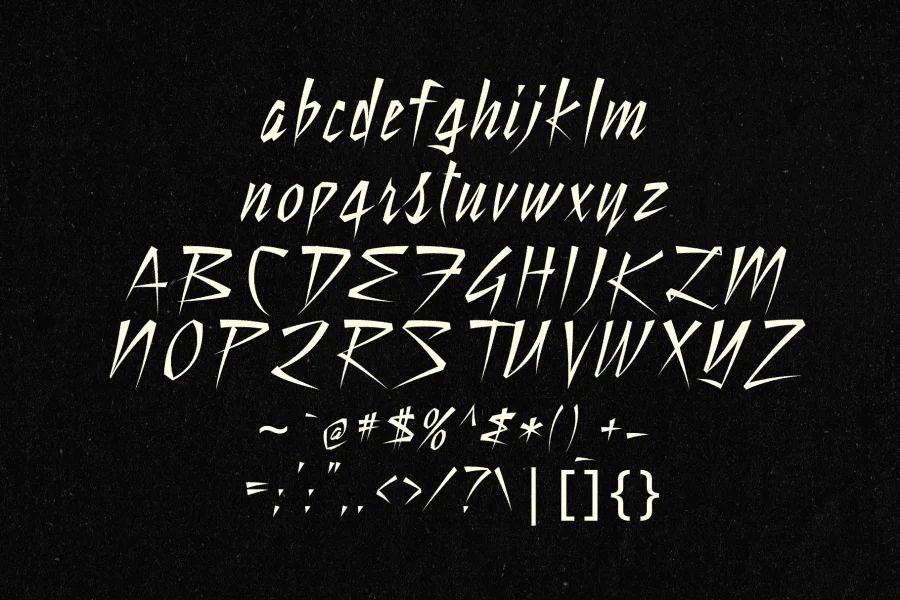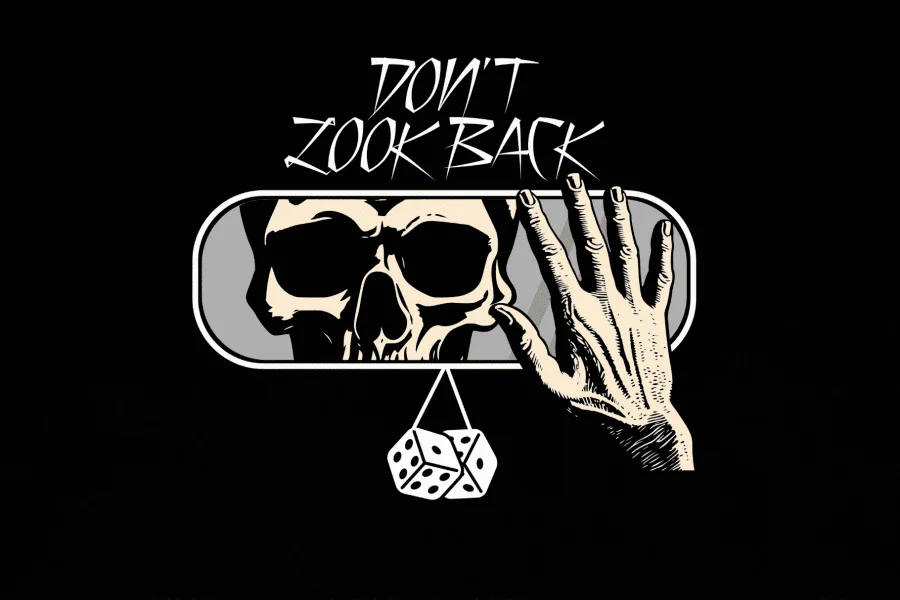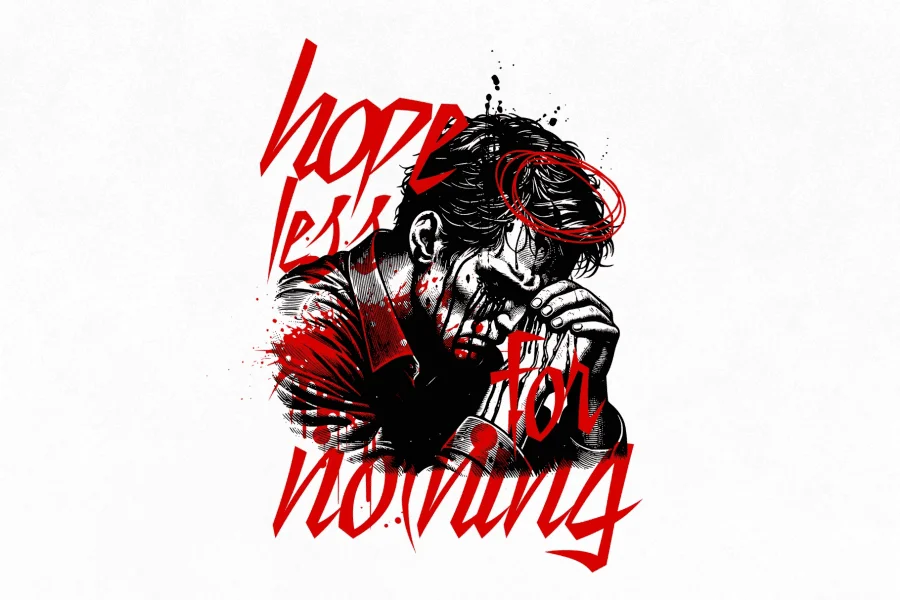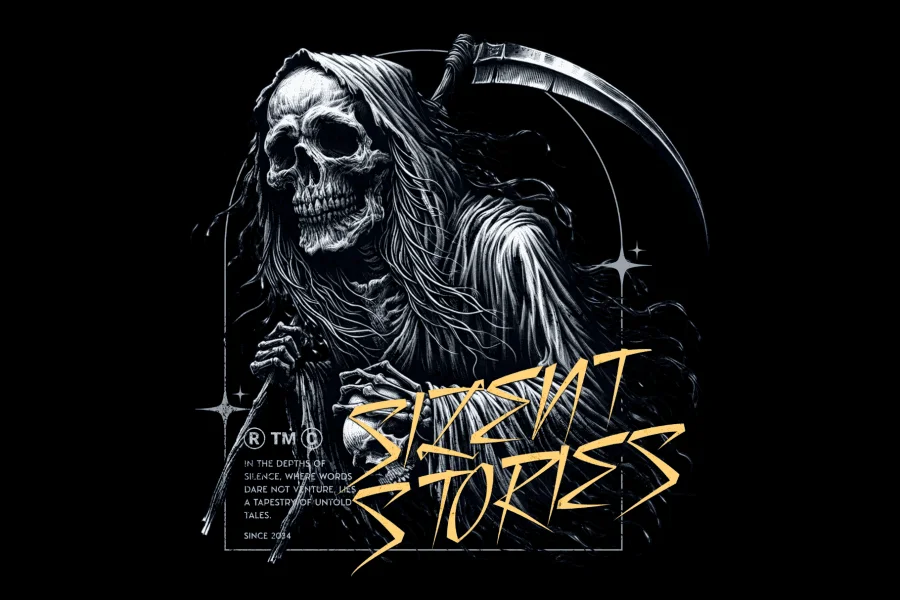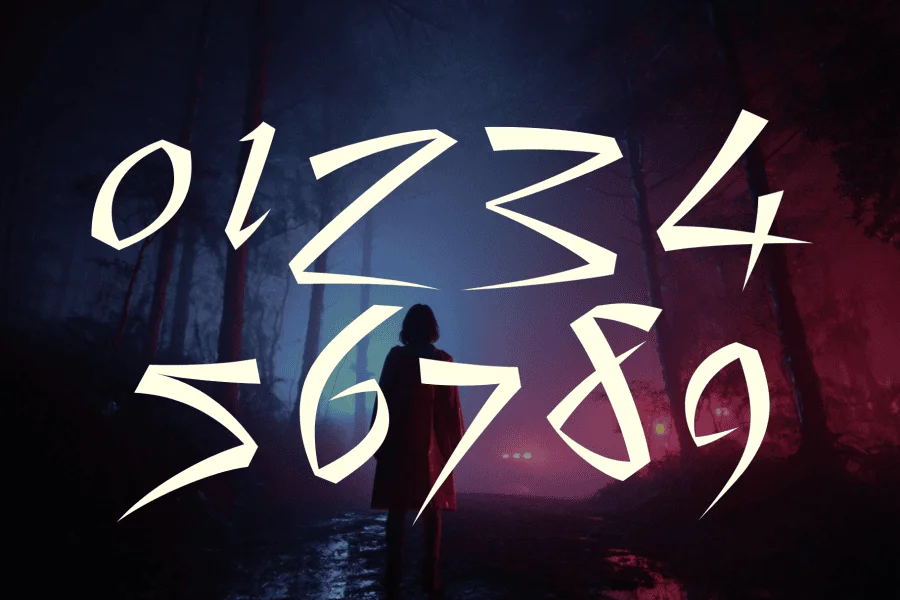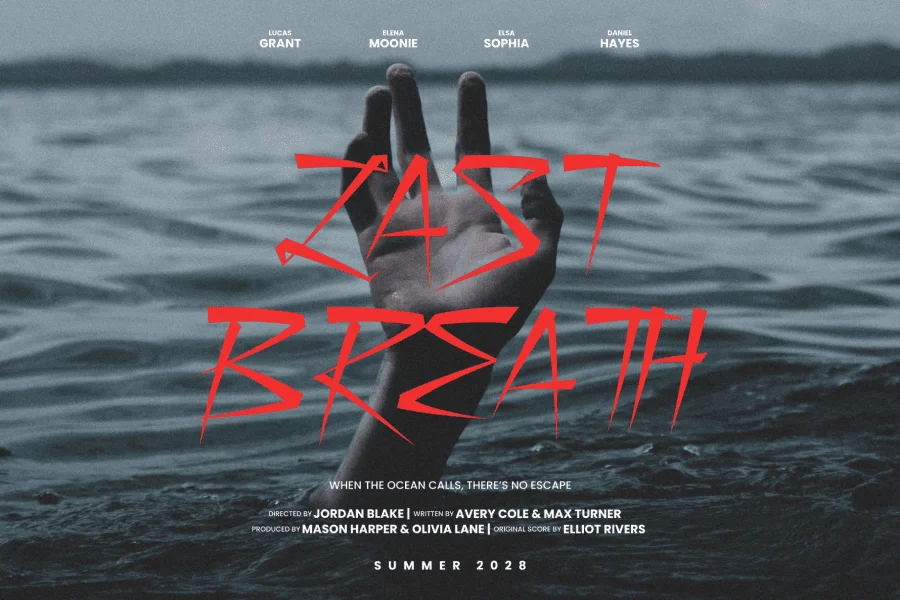
Drenched in dread and sharpened with malice, Bloodletter is not just a font, it’s a scream in typographic form.
Crafted with razor-sharp edges and unsettling detail, this horror typeface was made to terrify. Each letter feels carved, slashed, or summoned straight from a nightmare, making it the perfect weapon for horror posters, Halloween branding, scary movie titles, eerie merch, haunted house flyers, and anything that demands a bloodcurdling presence.
Whether you’re designing for a cult horror film, a spooky October event, or just looking to inject fear into your next project, Bloodletter delivers menace with every keystroke.